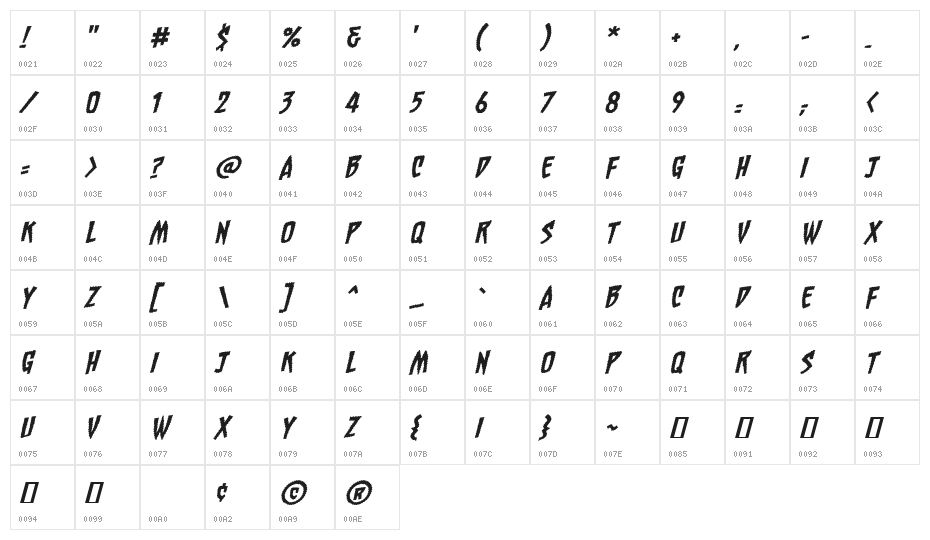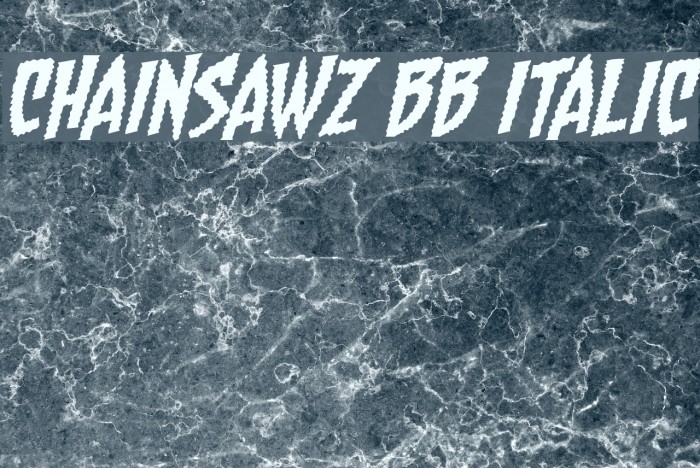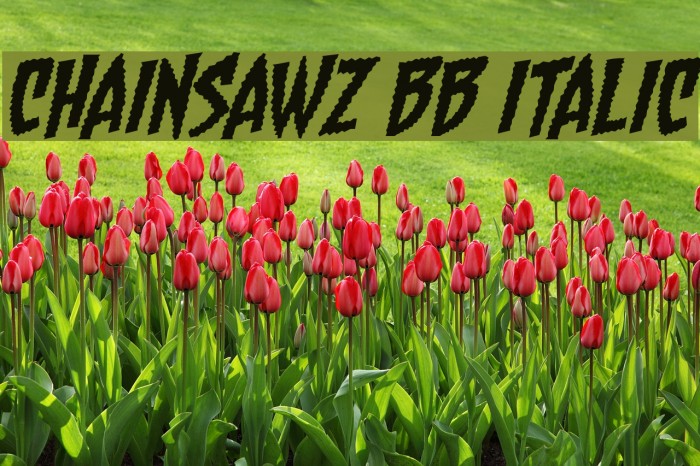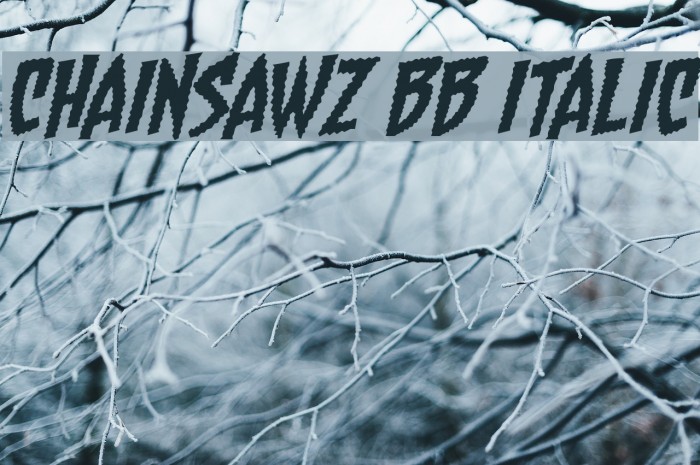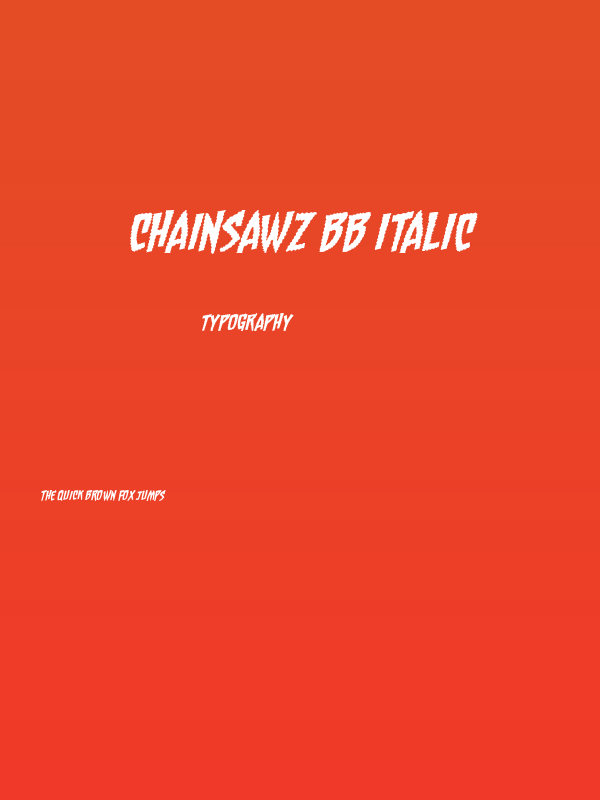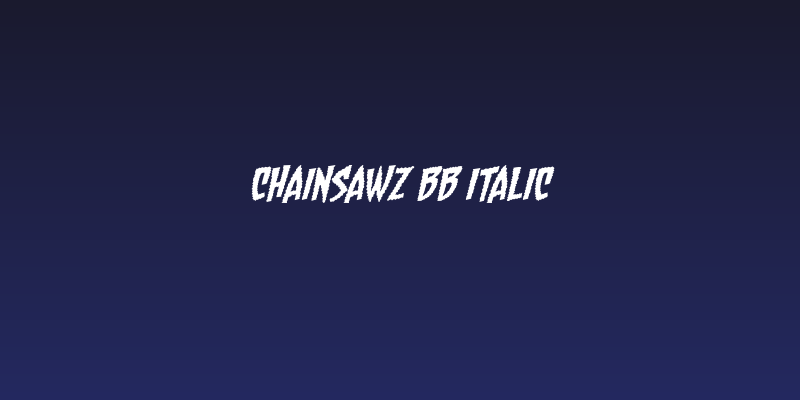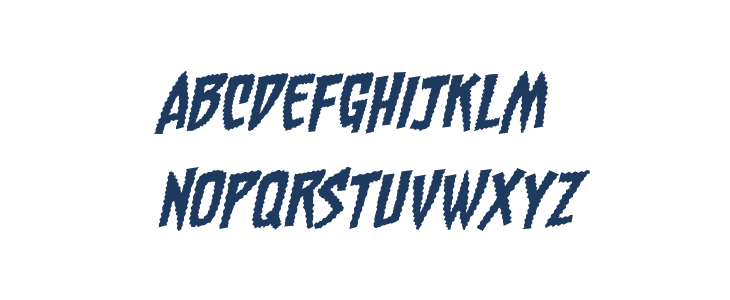
Chainsawz BB Italic Font
Chainsawz BB Italic Description
This font features a bold, jagged style that mimics the appearance of a chainsaw cut, giving it a rugged and aggressive look. The letters are italicized, adding a dynamic and forward-leaning energy to the text. Each character is crafted with sharp, serrated edges, creating a sense of movement and intensity. The uppercase and lowercase letters maintain a consistent style, with numbers and special characters following the same design ethos. This font is highly distinctive and eye-catching, making it suitable for projects that require a bold statement.
| Proposed Projects | Ideal for horror-themed posters, edgy branding, extreme sports logos, or any project needing a bold, aggressive typeface. |